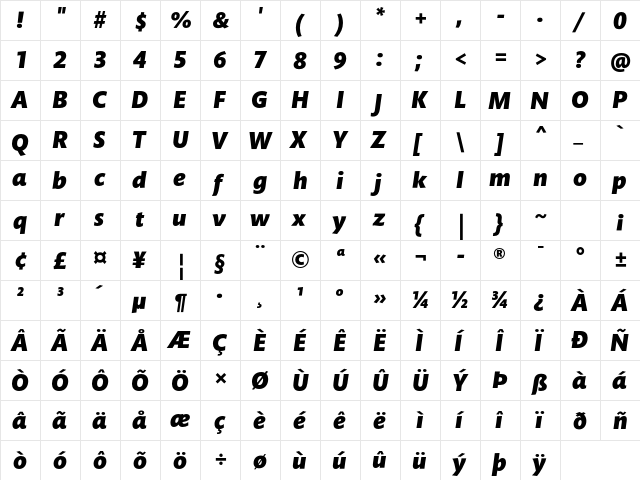
Mundo Sans Std Black Italic Font Preview
Mundo Sans Std Black Italic
Design Context for Mundo Sans Std Typeface
Mundo Sans Std takes a measured approach to typography — its balanced proportions and neutral character make it a reliable workhorse for both digital and print work. The slanted form adds forward momentum and visual energy.
Pro Tip: Use Mundo Sans Std for emphasis, pull quotes, and subheadings where its slanted energy can add rhythm to the layout.